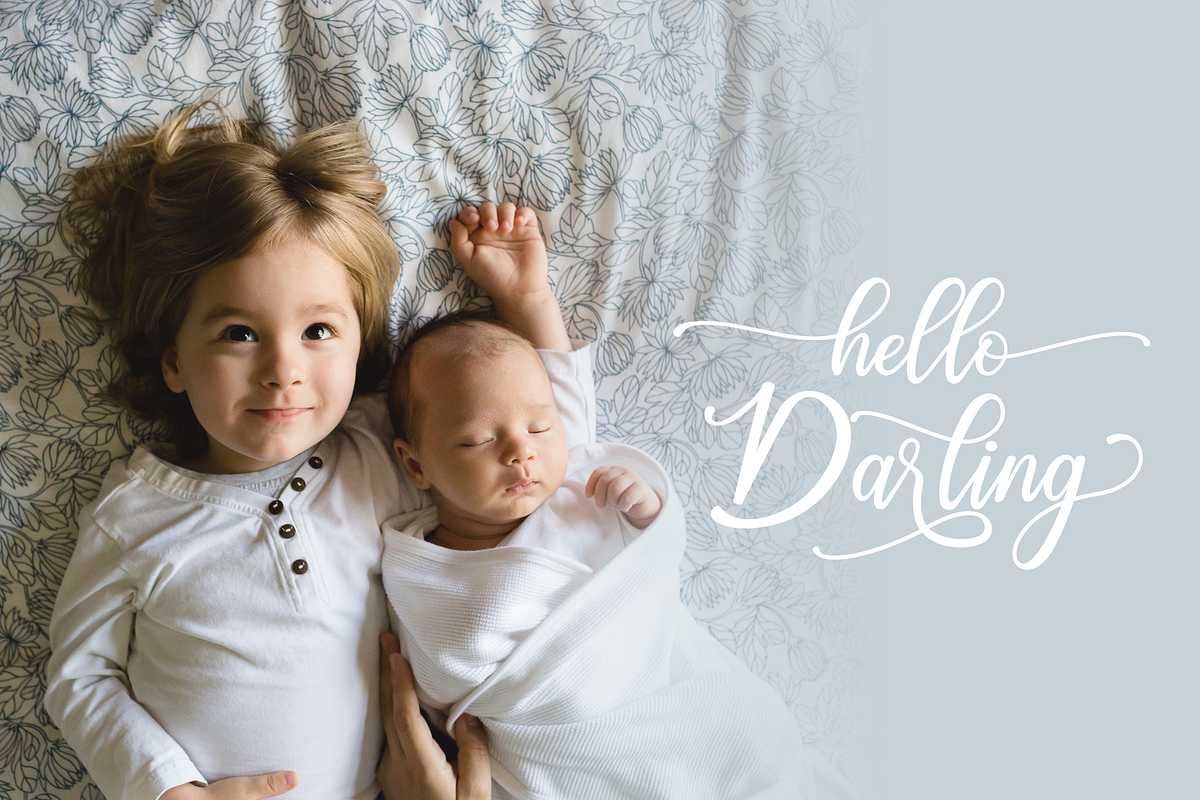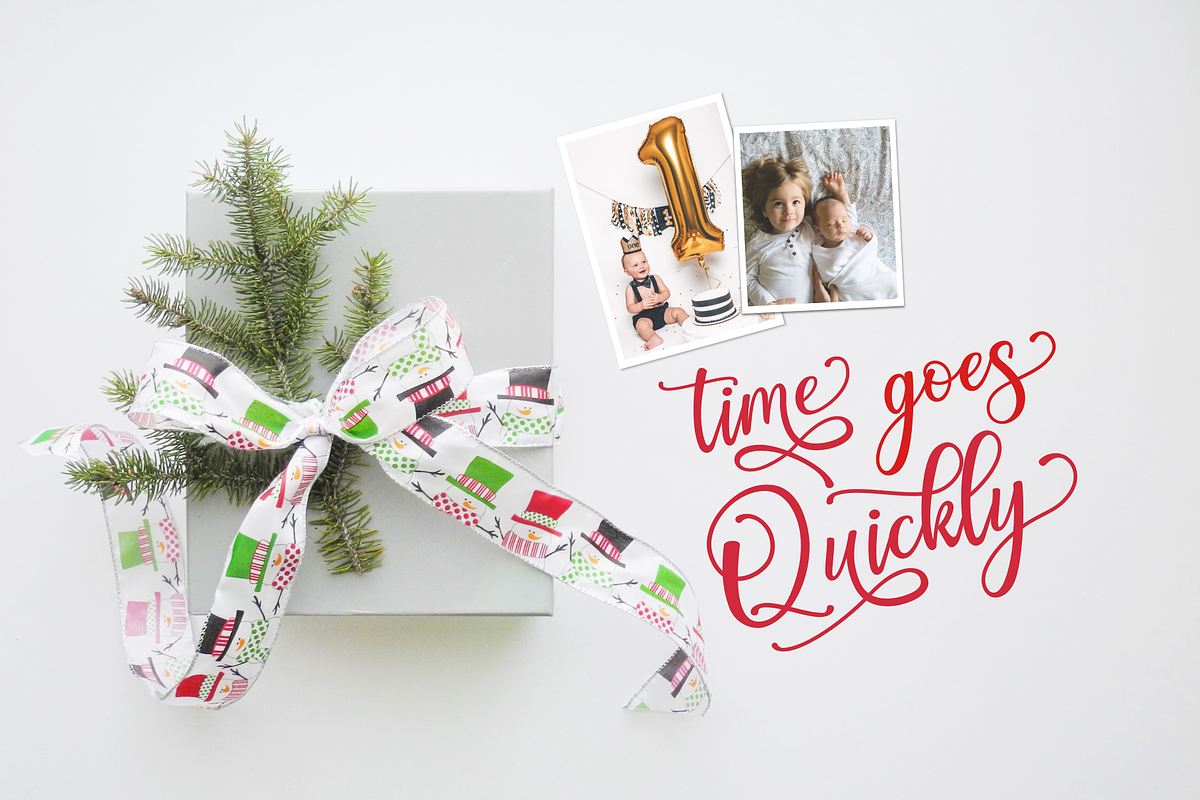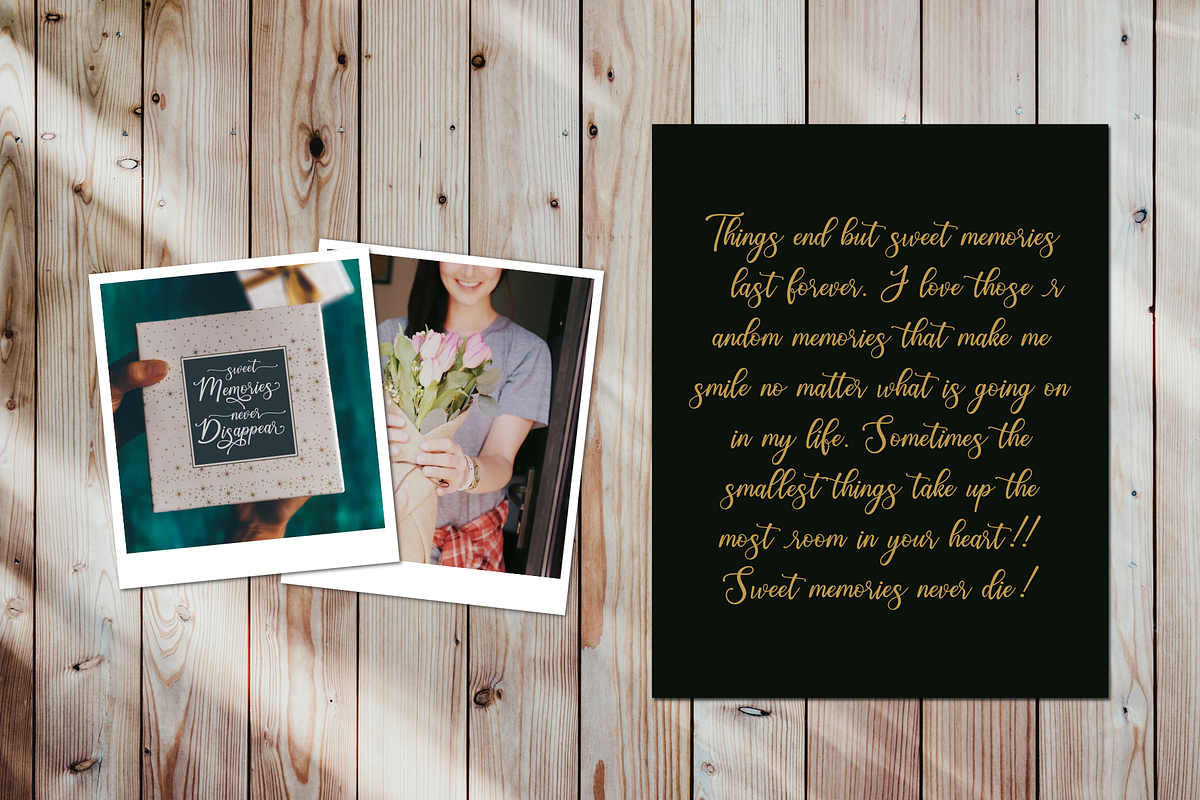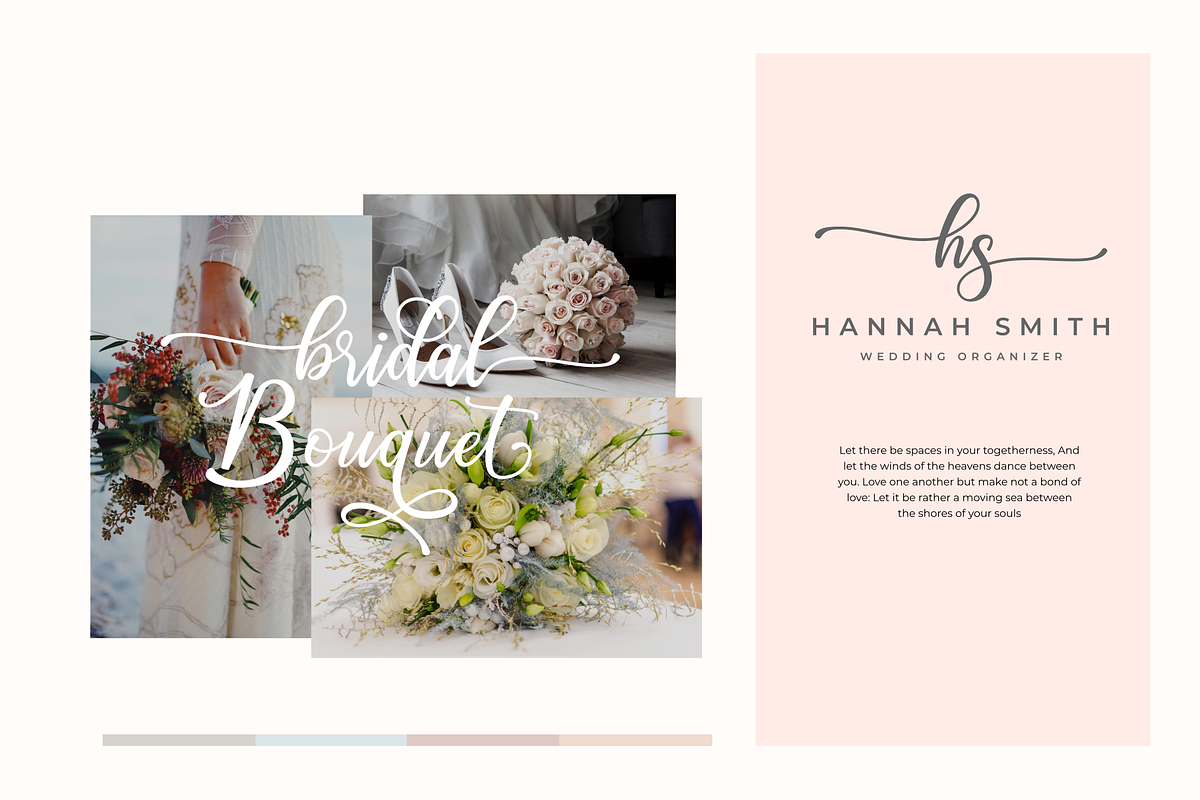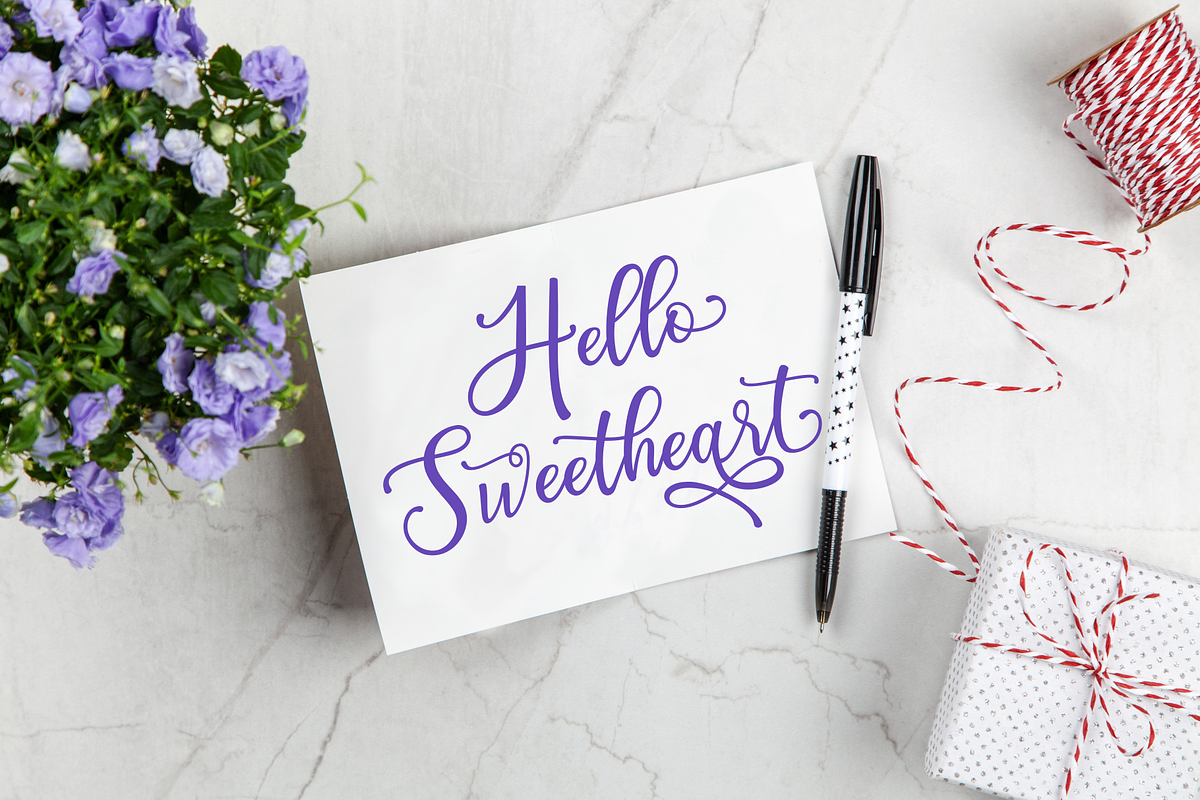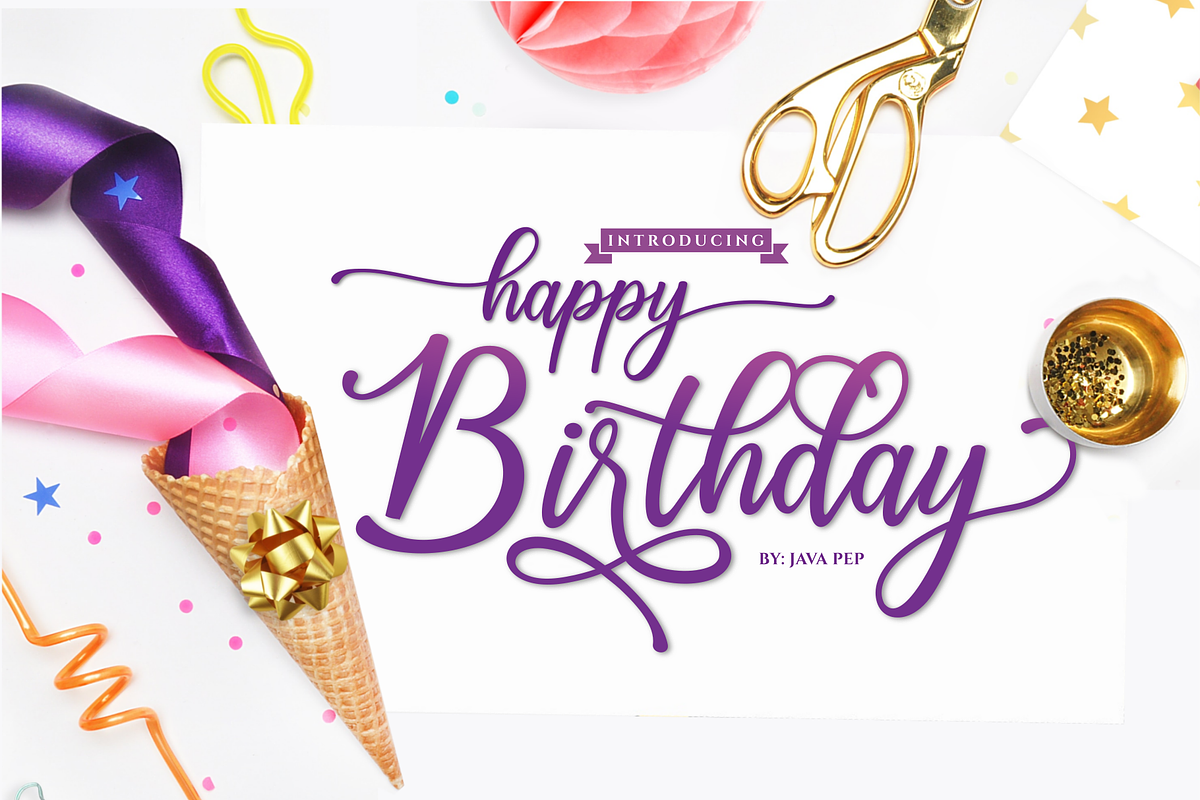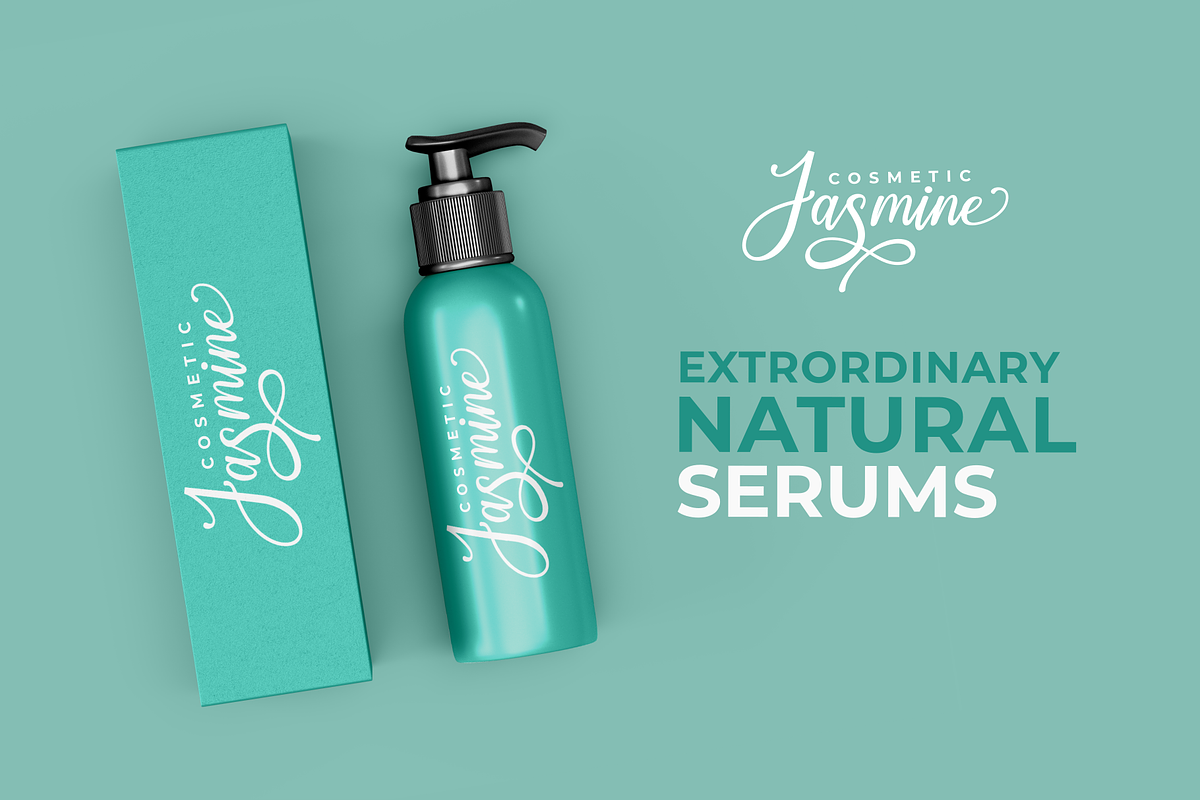
Happy Birthday // Pretty font
Introducing the pretty script font called Happy Birthday. These font has already OpenType features such as swashes, alternates, stylistic alternates, SS01-SS06 and supports 17 languages. Happy Birthday font suitable for greeting card, logotype, wedding, invitation card, signature mark, and etc. I've made the special font for all OpenType features like alternate, swashes, stylistic alternates and etc. If your software not compatible with OpenType features or you can use character map application.
- These font has already OpenType features such as swashes, alternates, stylistic alternates, SS01-SS06 and supports 17 languages.
- I've made the special font for all OpenType features like alternate, swashes, stylistic alternates and etc.